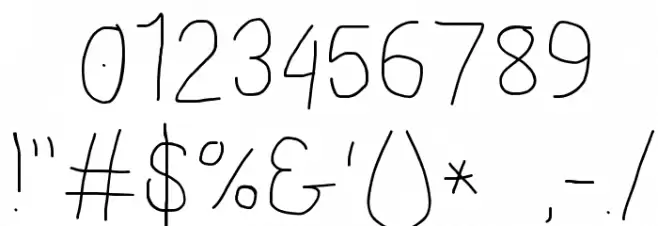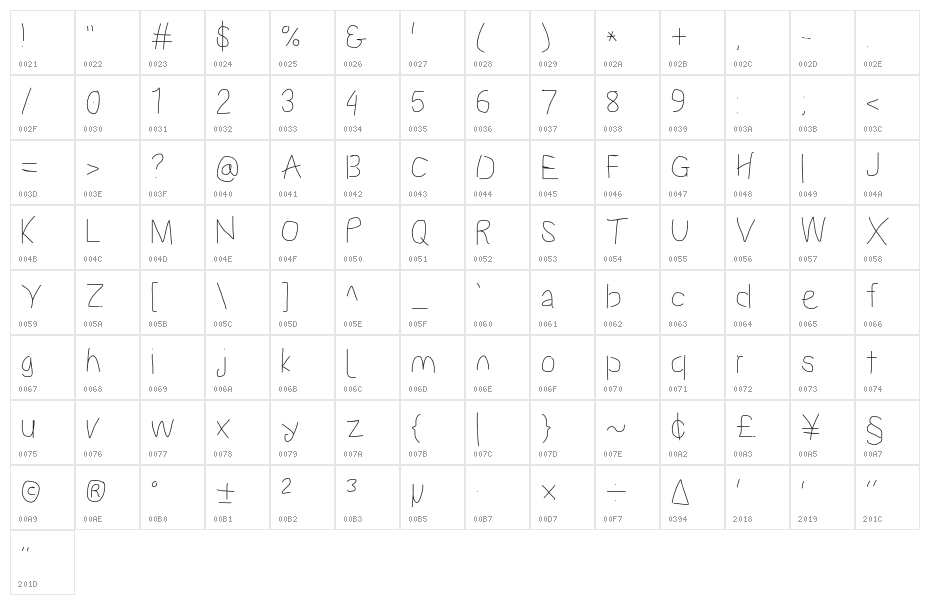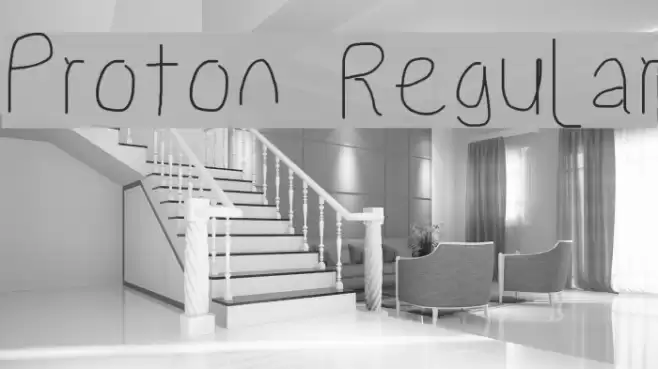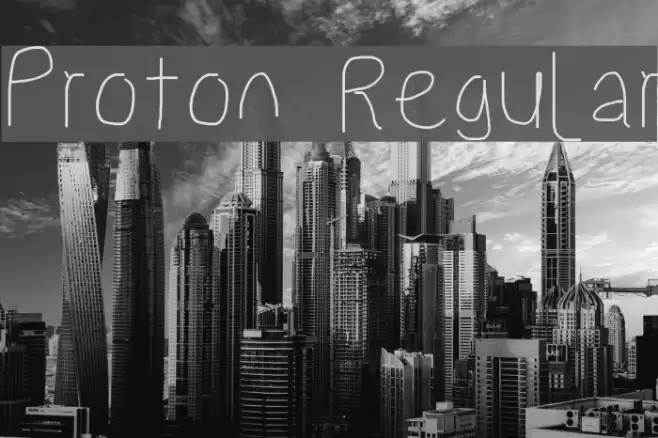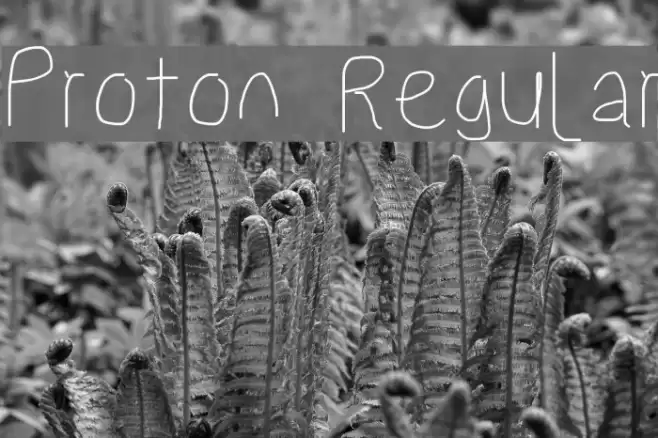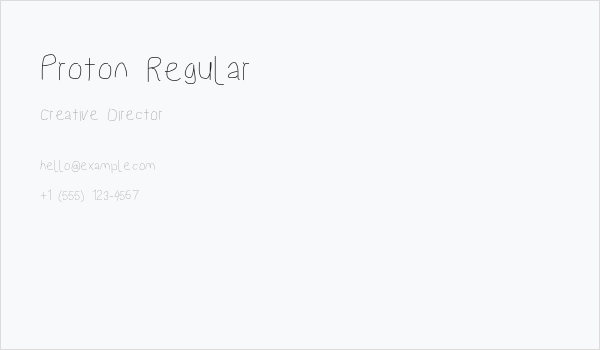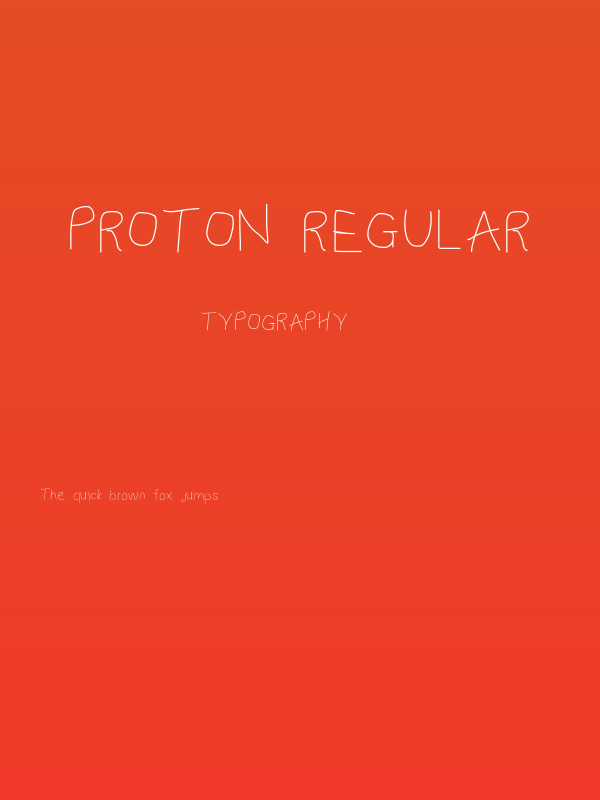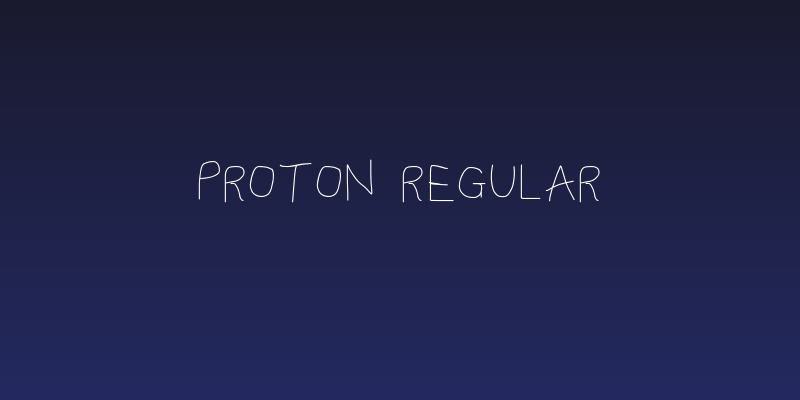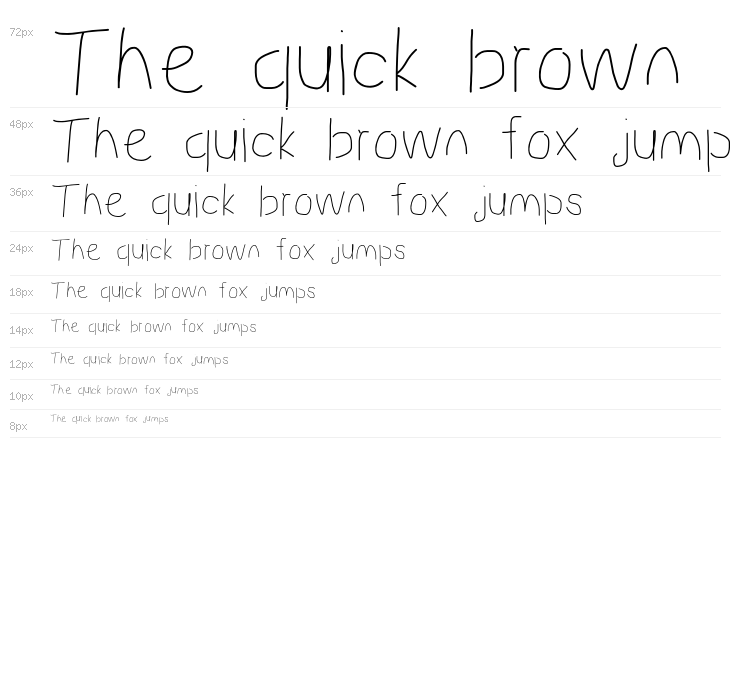
Proton Regular Font
Proton Regular Description
This font features a playful and informal style, characterized by its thin, hand-drawn strokes that give it a casual and approachable appearance. The letters are slightly irregular, adding a whimsical touch to the overall design. The uppercase and lowercase letters maintain a consistent height, contributing to a cohesive look. The numerals and special characters follow the same playful aesthetic, making the font versatile for various creative projects. Its simplicity and charm make it suitable for designs that require a personal and friendly feel.
| Use Case | Headlines, Logos, Informal text |
| Proposed Projects | Ideal for children's books, greeting cards, informal invitations, and creative branding. |